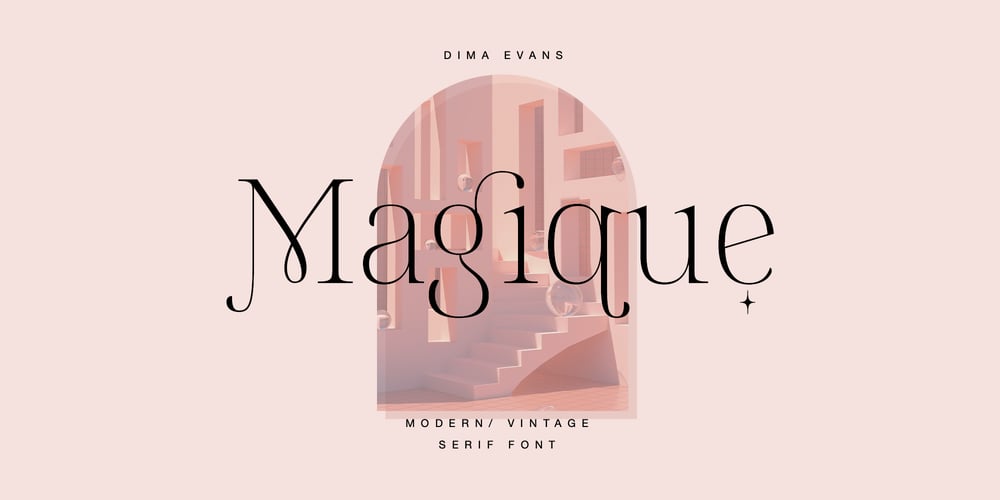
Magique Font Family was designed by Dmitrii Chirkov and published by Supfonts. Magique contains 2 styles and family package options. Magique is a modern serif with vintage charm, fashionable appearance with a touch of retroQuick access – using the built-in OPEN TYPE functions. Just add “-” or “_” or “+” to the letter and instantly get an alternative. This feature works in most applicationsFonts is an open type with clean shapes and precise kerning. It includes ligatures and alternations with a total of 515+ characters encoded by the PUA.Language support: All European languagesDon’t forget to subscribe so you don’t miss out on the new awesome fontsDima